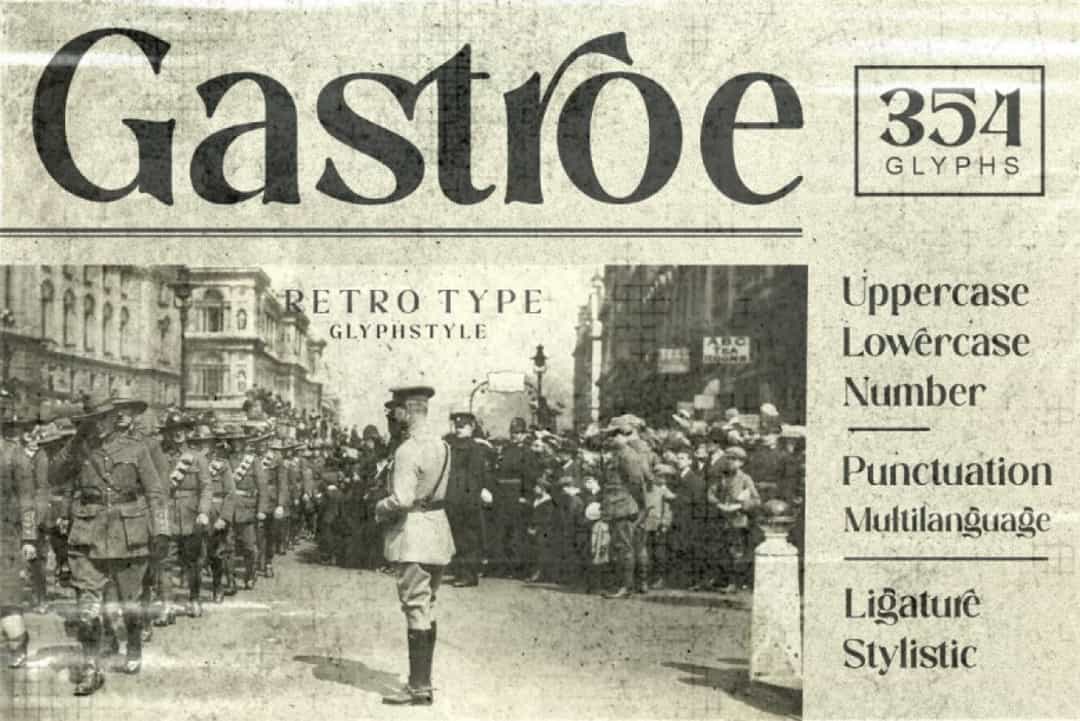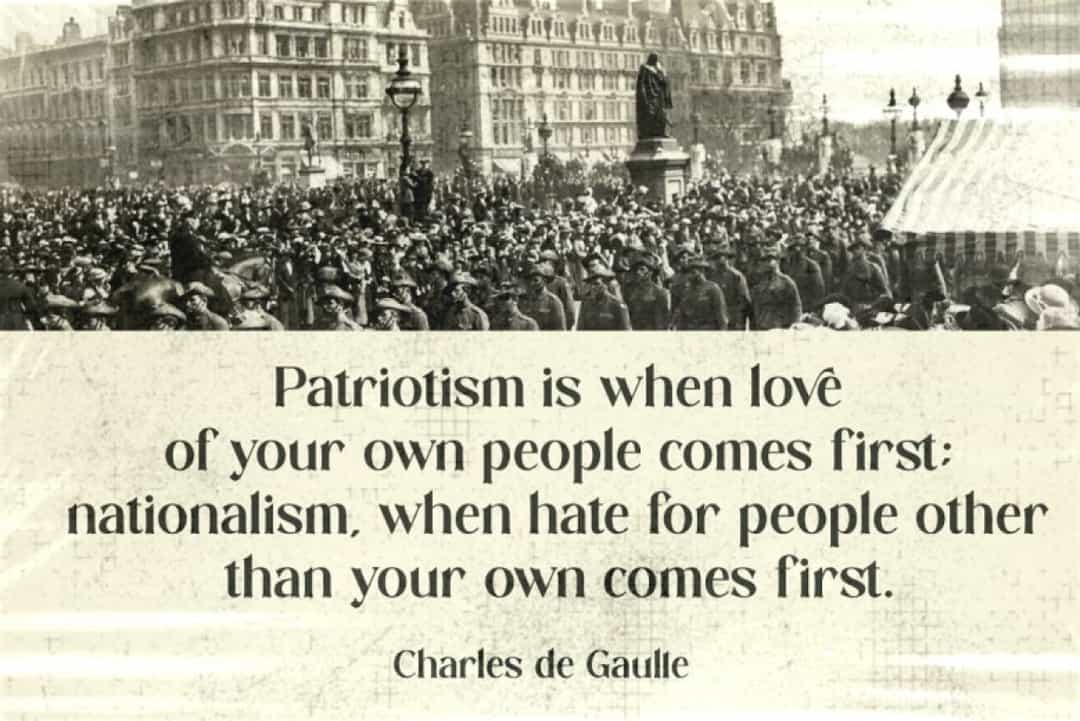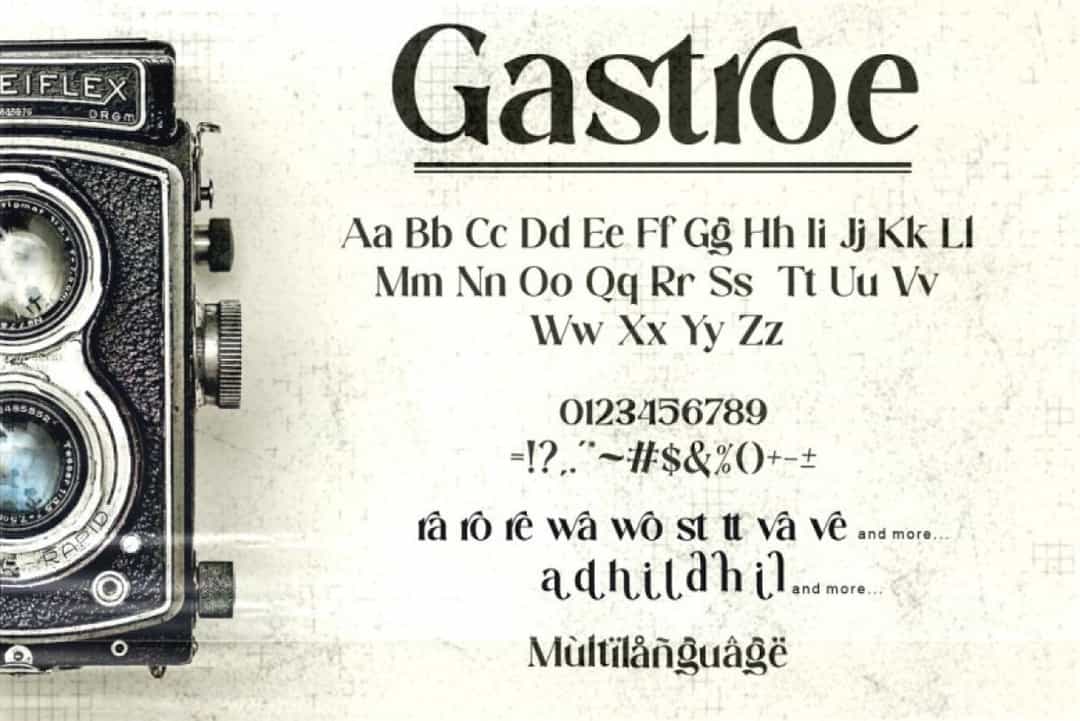
Gastroe is an old-fashioned font with retro and vintage flair. Classic yet stylish with many stylistic ligatures to use. Gastroe makes an excellent font choice for branding purposes, logo design, wedding designs and more!